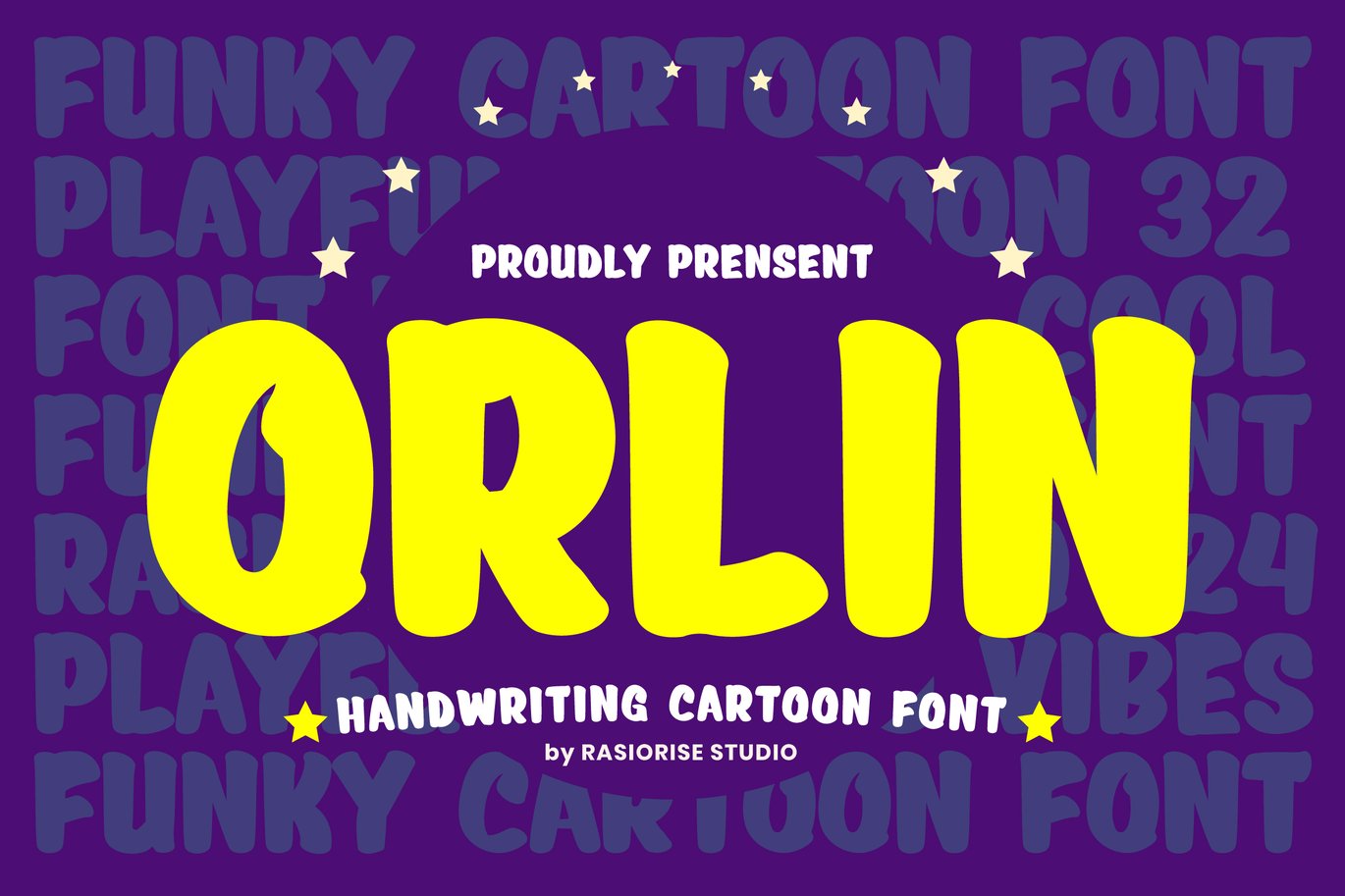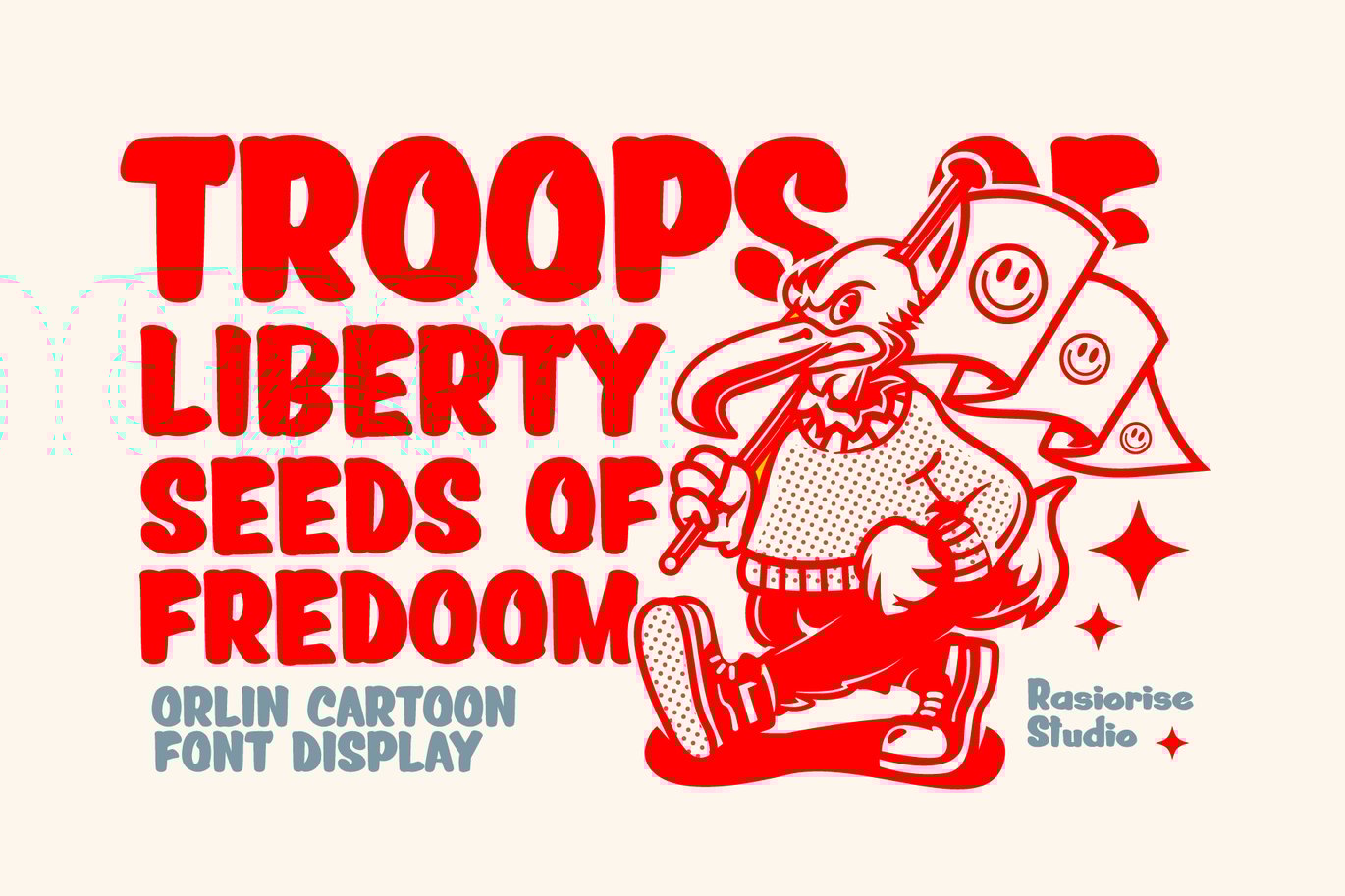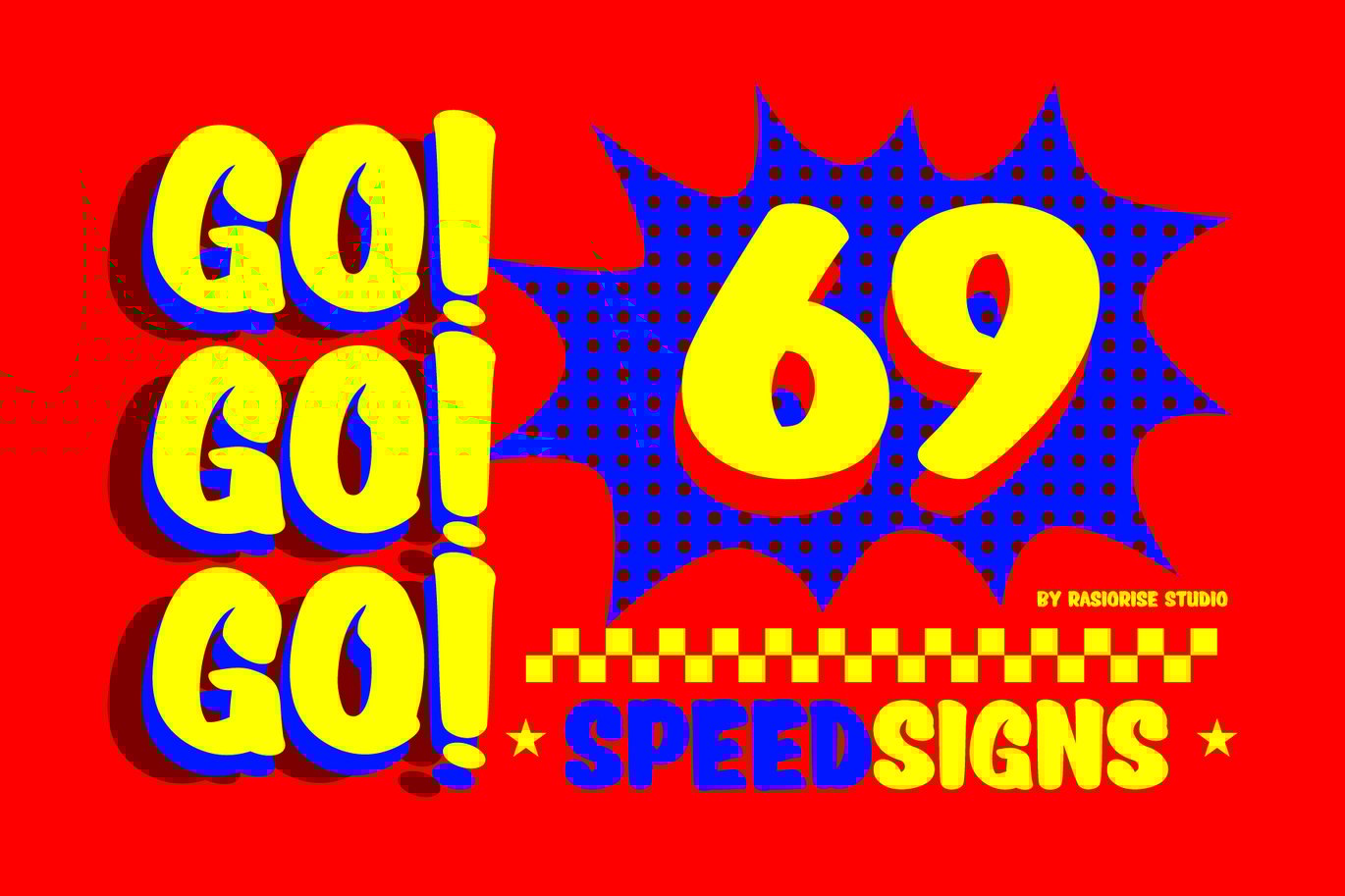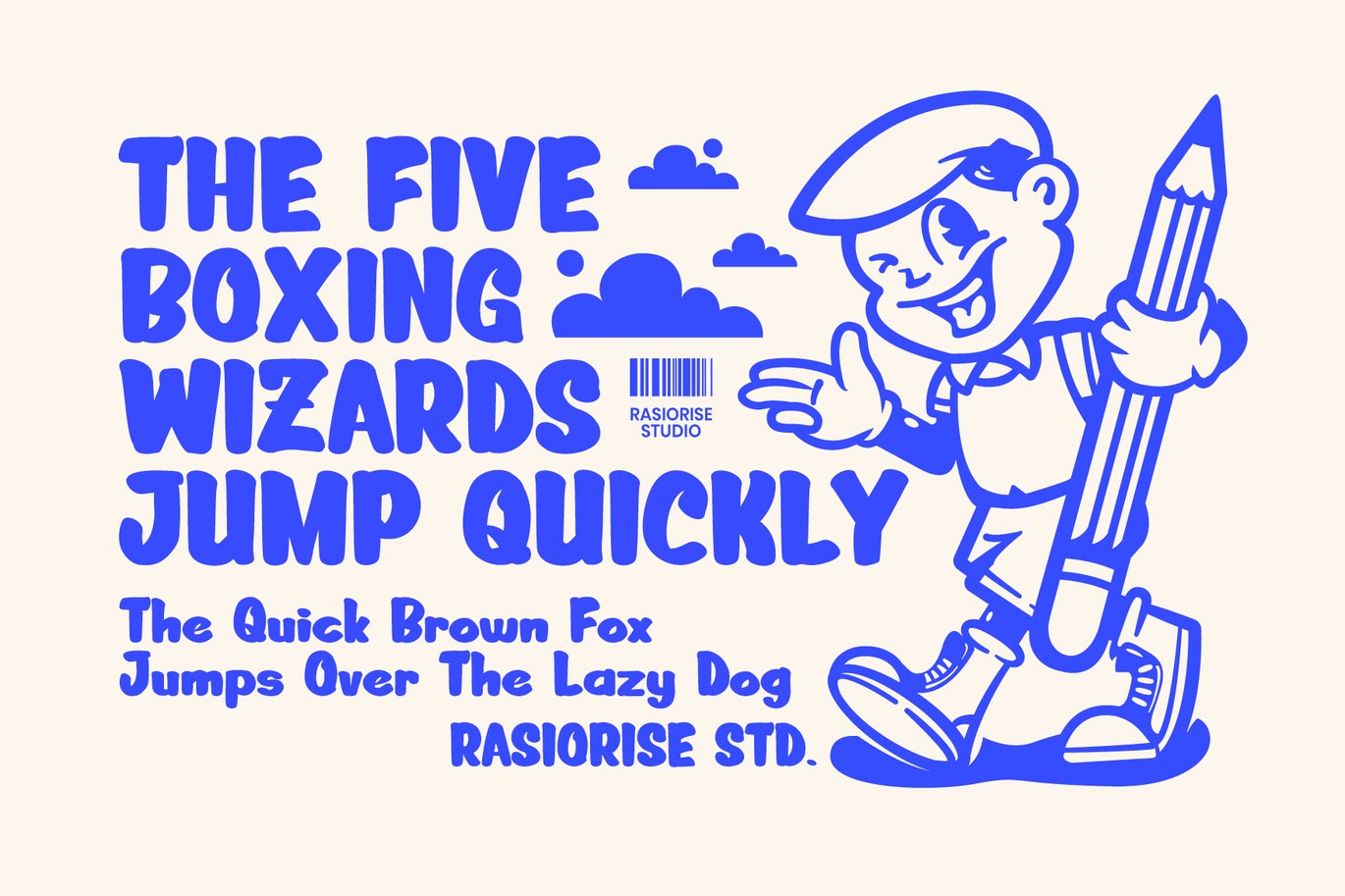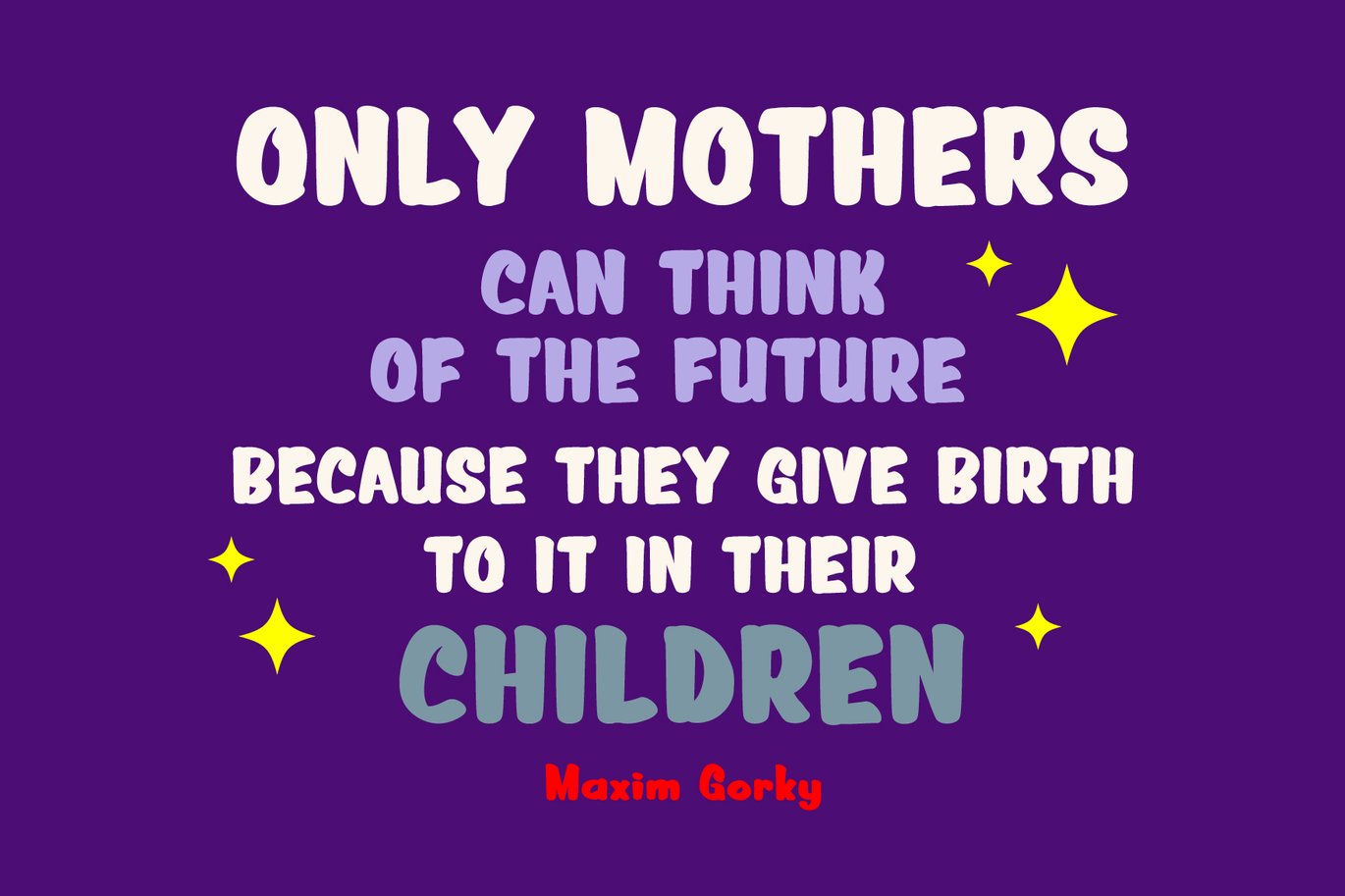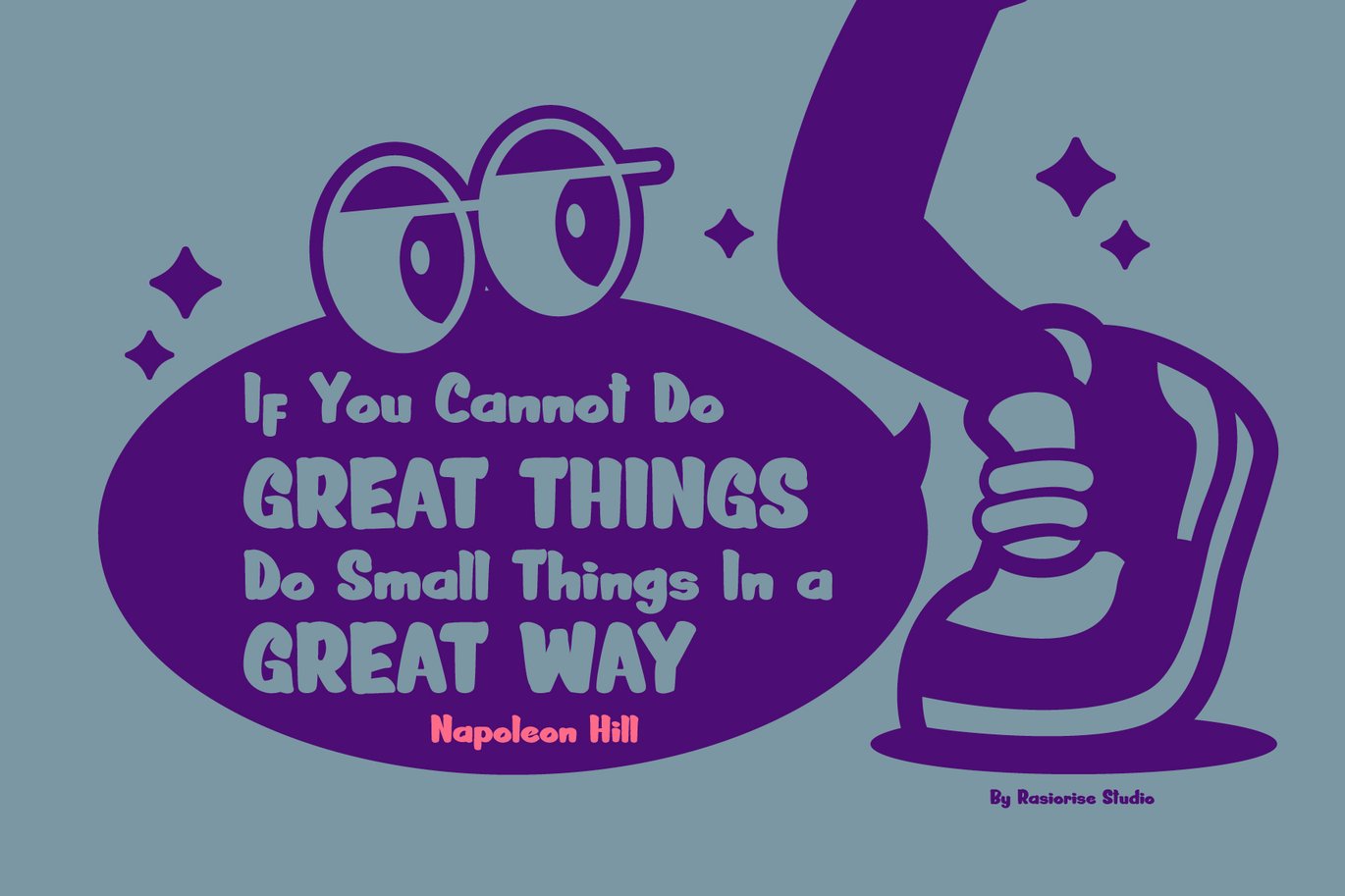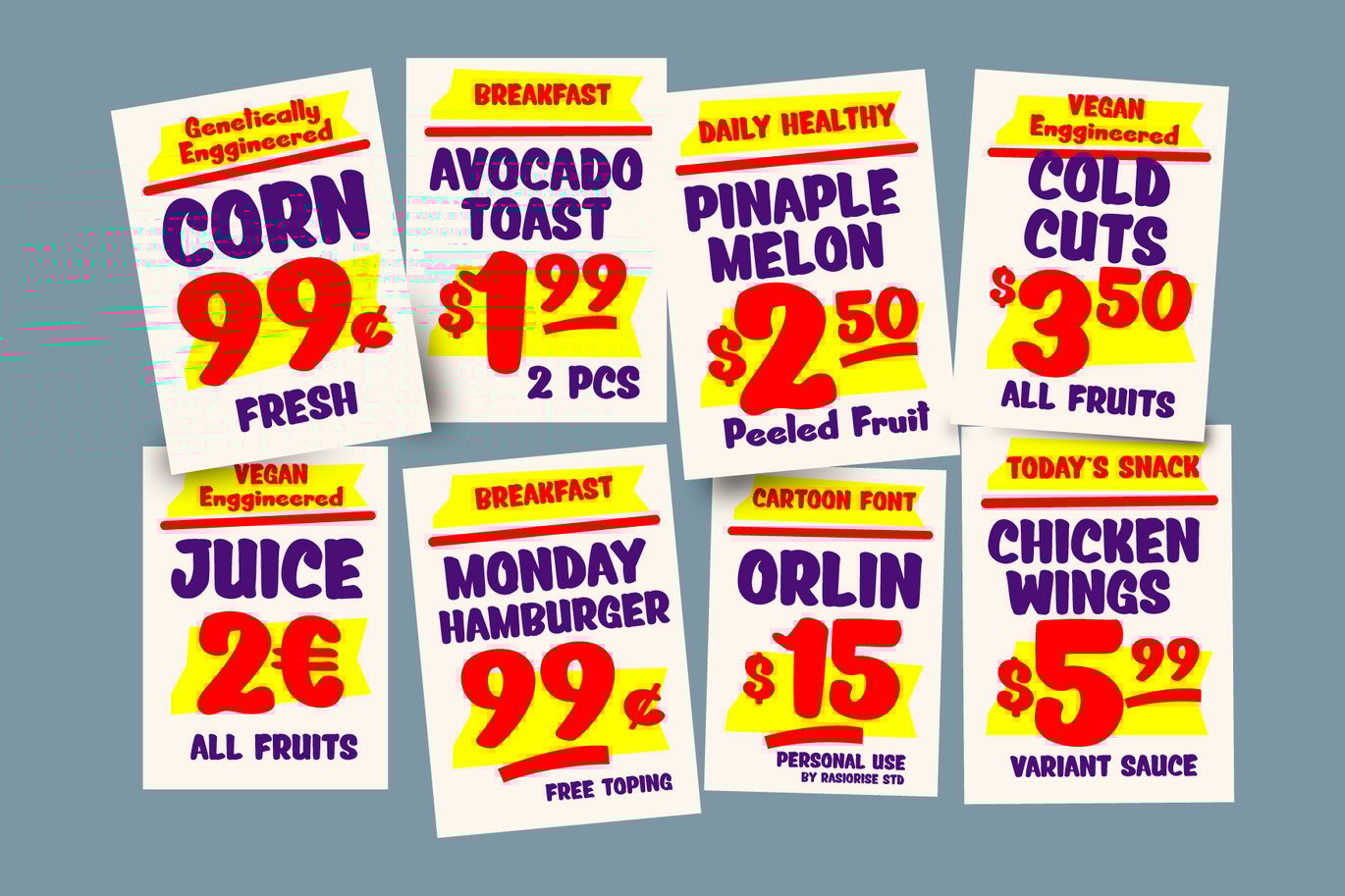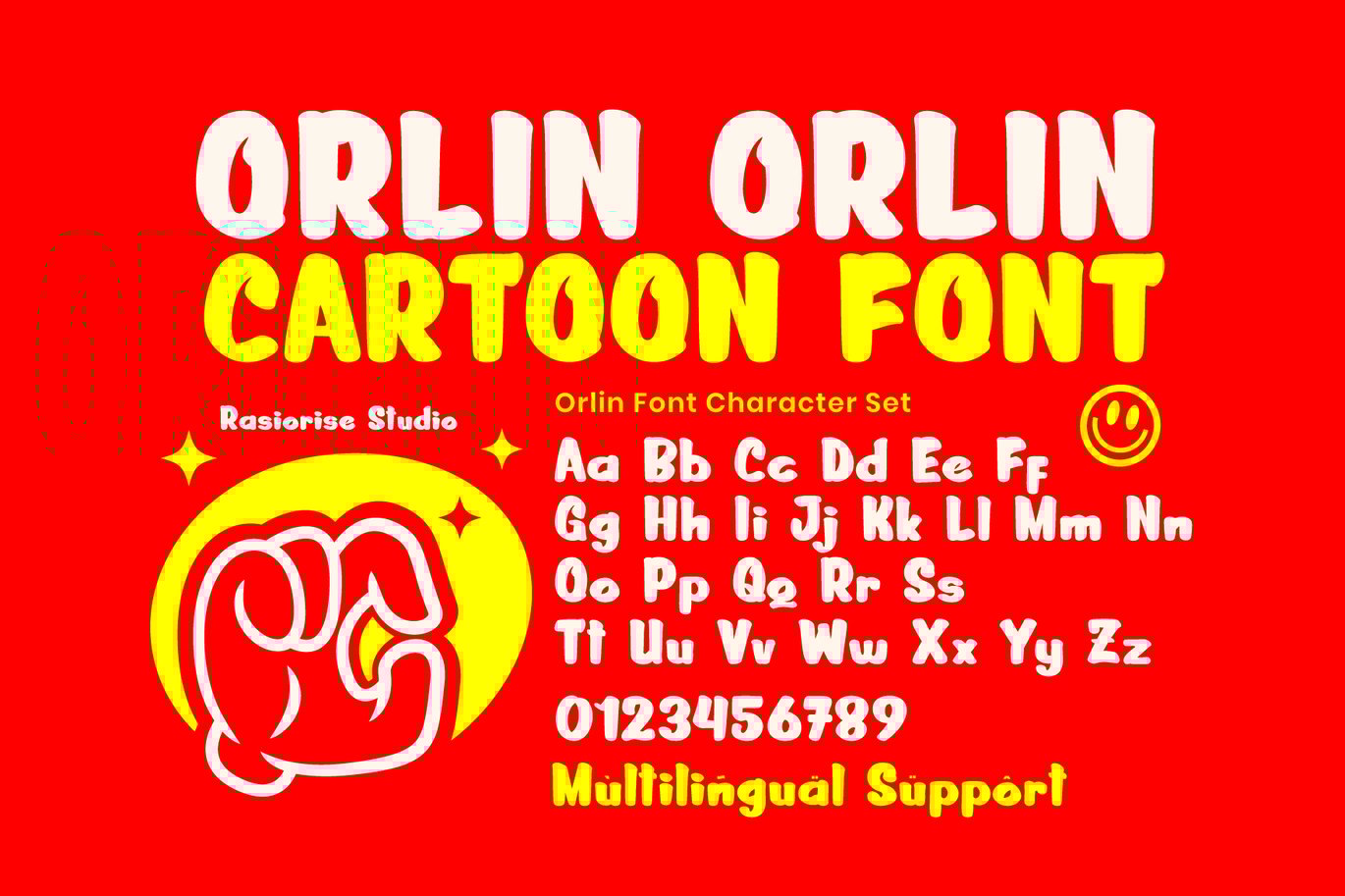
Orlin – Handwriting Cartoon Font
Introducing Orlin – Handwriting Cartoon Font by Rasiorise Studio
Orlin has been released for those of you who are looking for a Handwriting Cartoon font, The font is inspired by the Handwriting in the Bubble panel Comic and Signin Painter Lettering drawing Free Style with a few combine to turn them into a bit of a classic cartoon bold style font. This font is reguler character style, included as the Uppercase and Lowercase regular character, numeral and multilingual support.
Very suitable for Logotype, Signin Painter Style, Book Cover, Children Book, Comic Text, Poster, Merchandise, Packaging Label, Badge/Emblem Logo and much more.